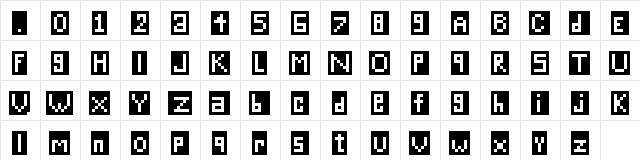
Brick Regular
Design Context for Brick Typeface
Brick takes a measured approach to typography — its balanced proportions and neutral character make it a reliable workhorse for both digital and print work.